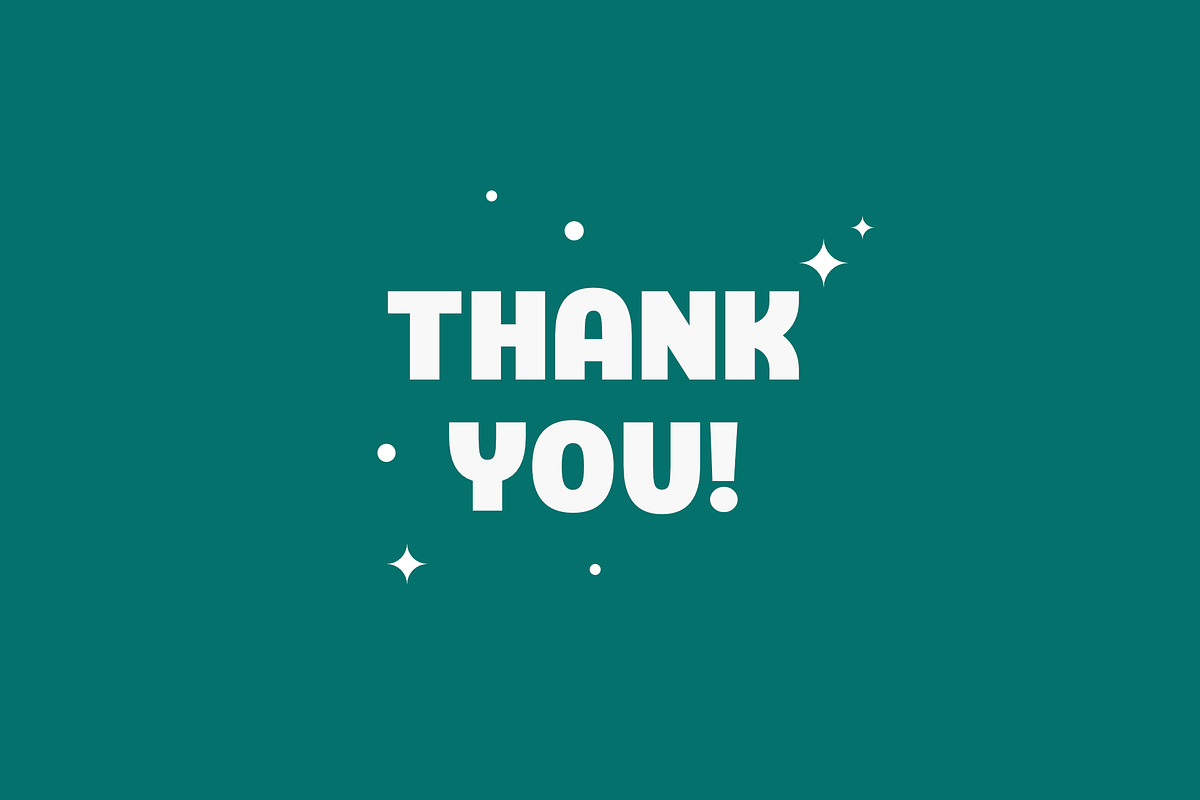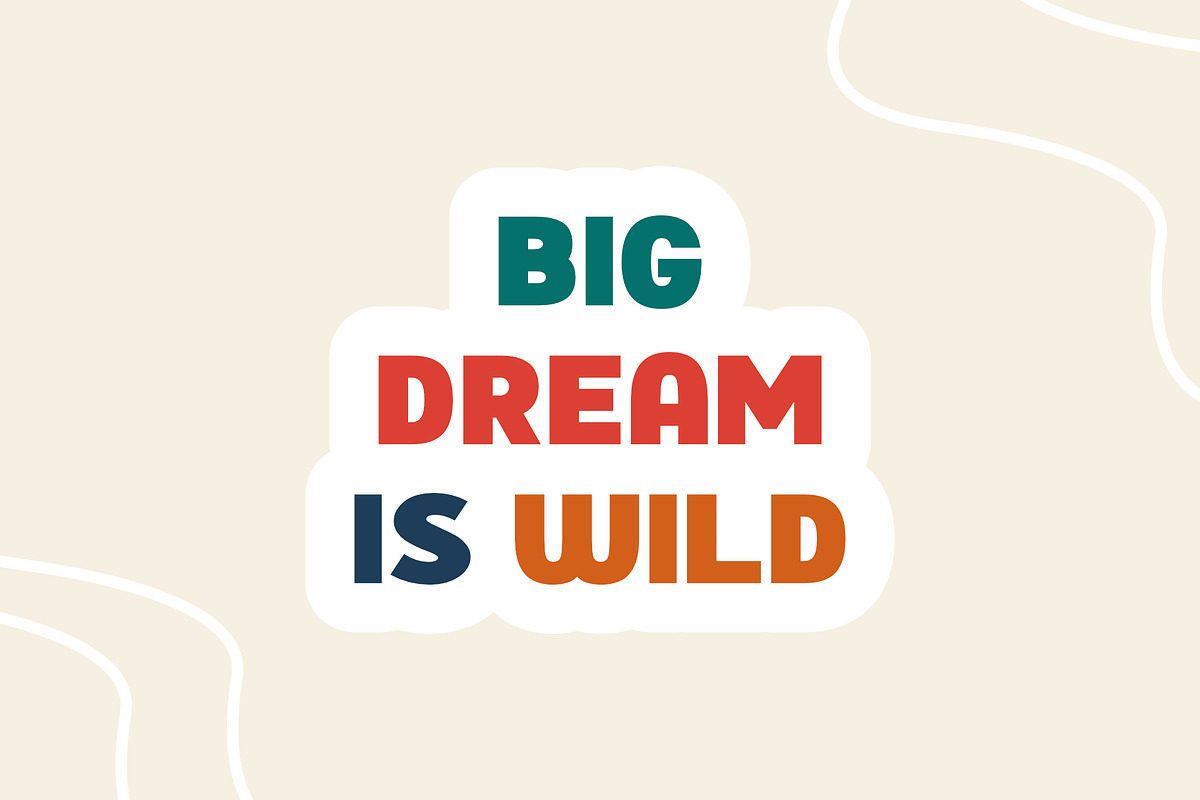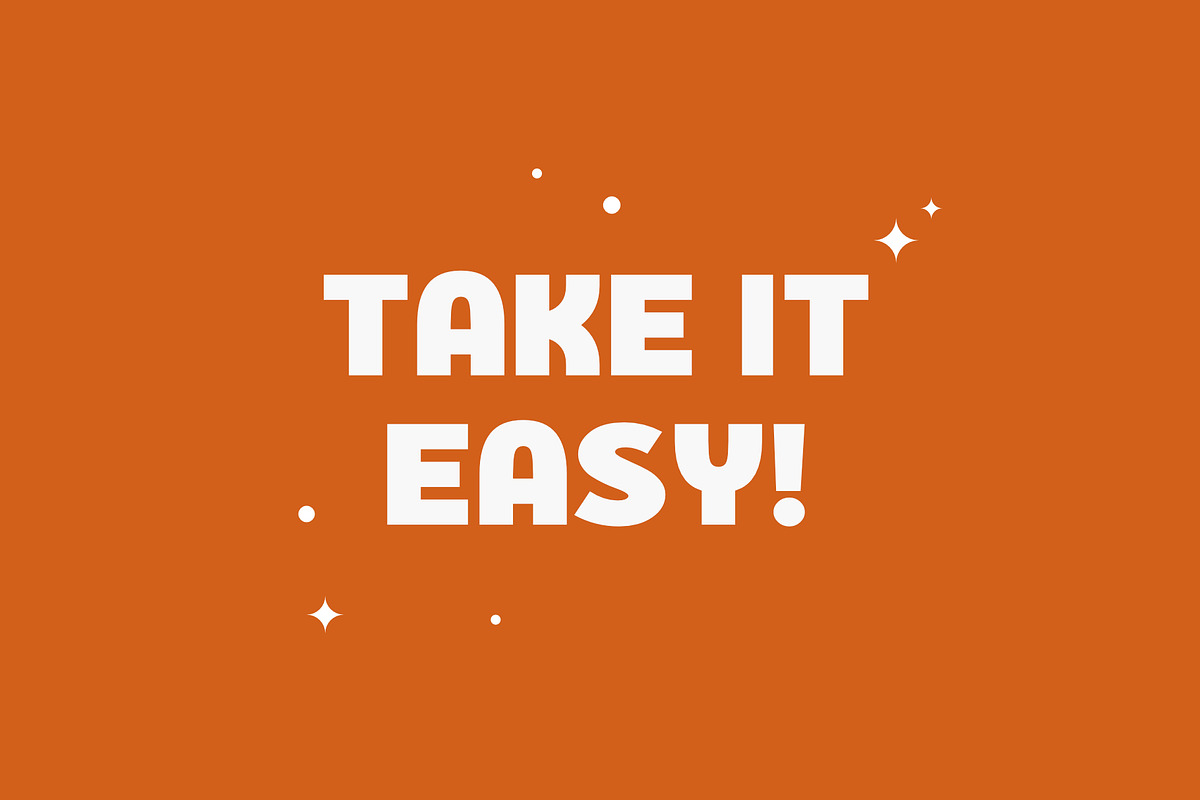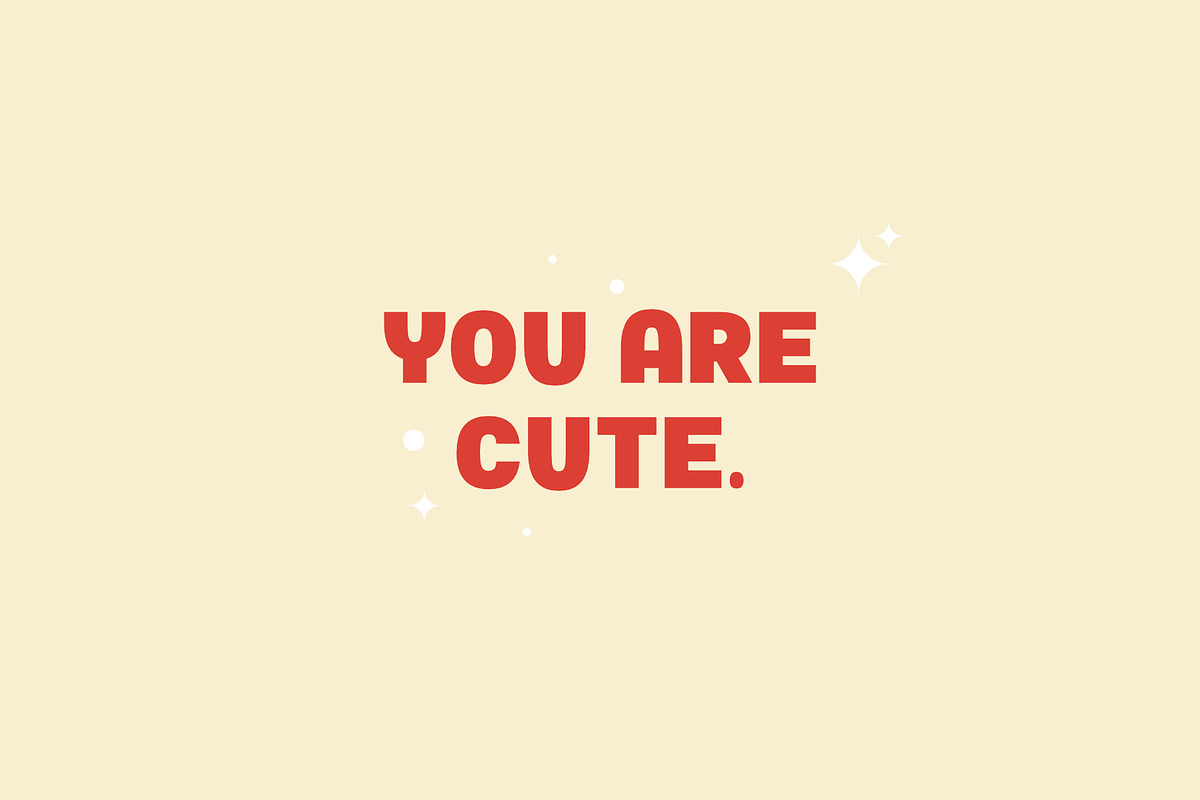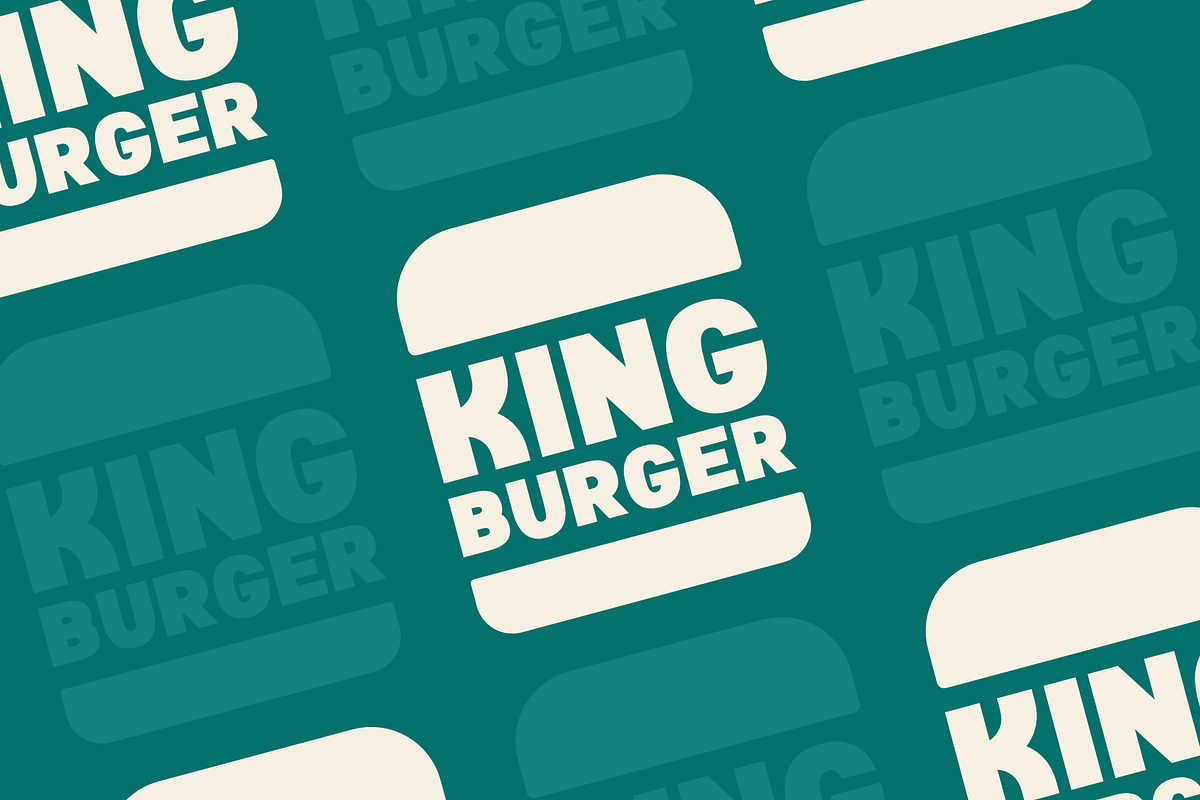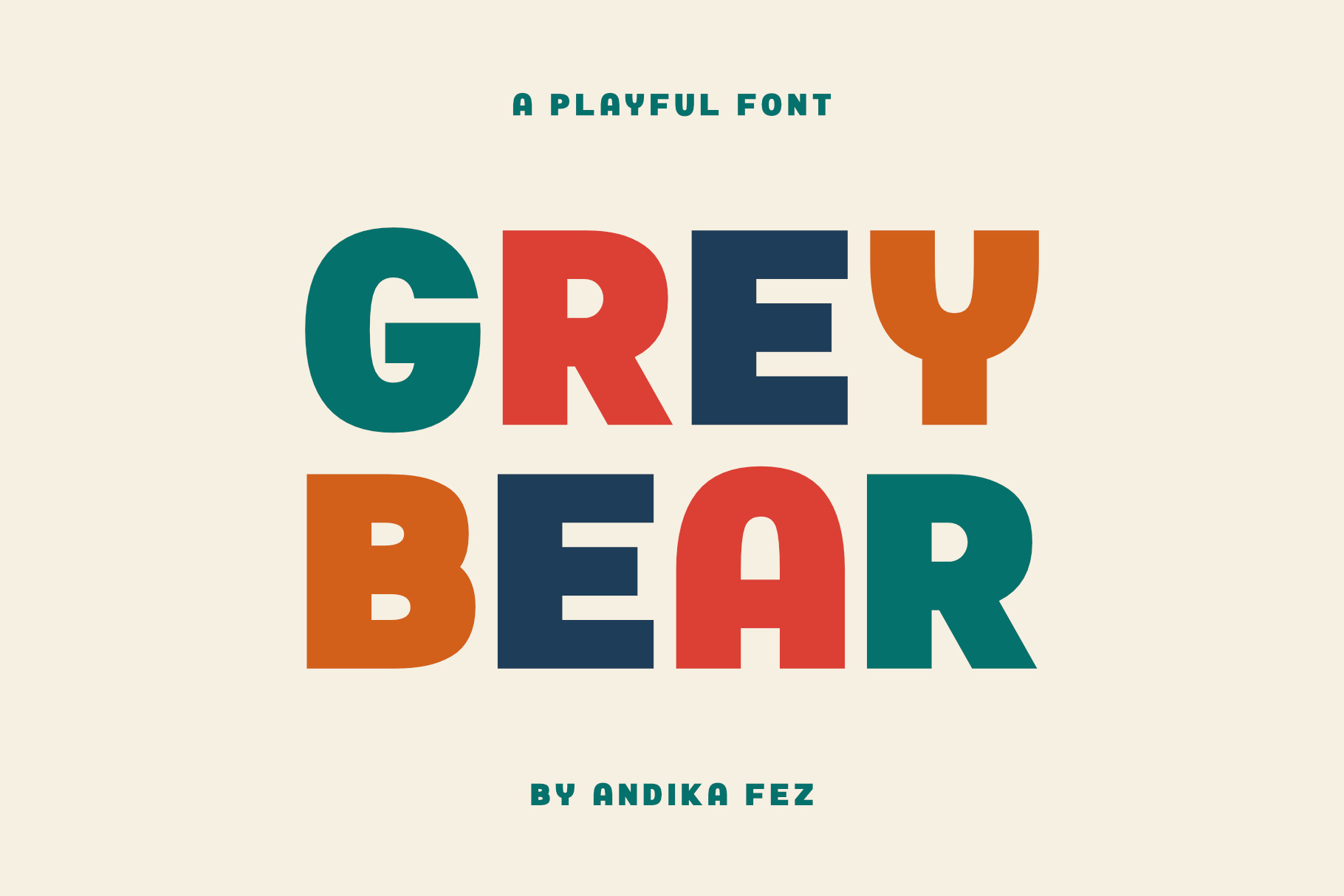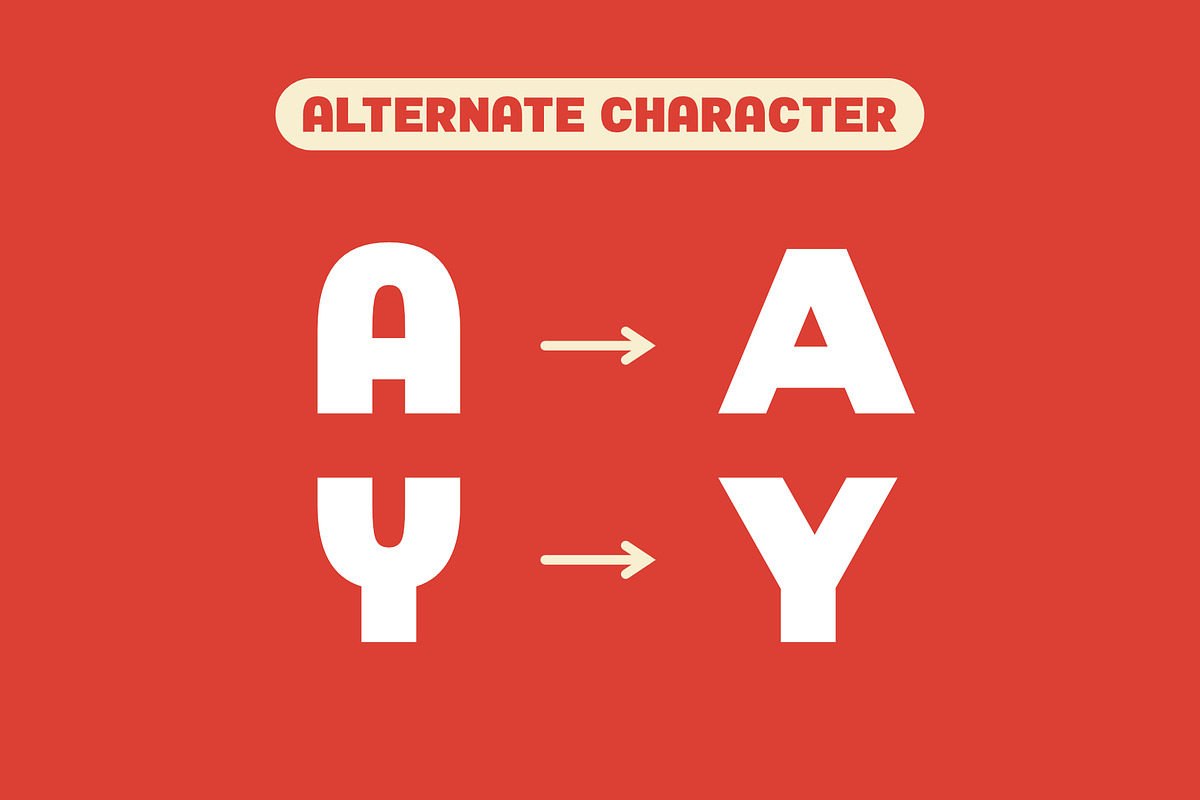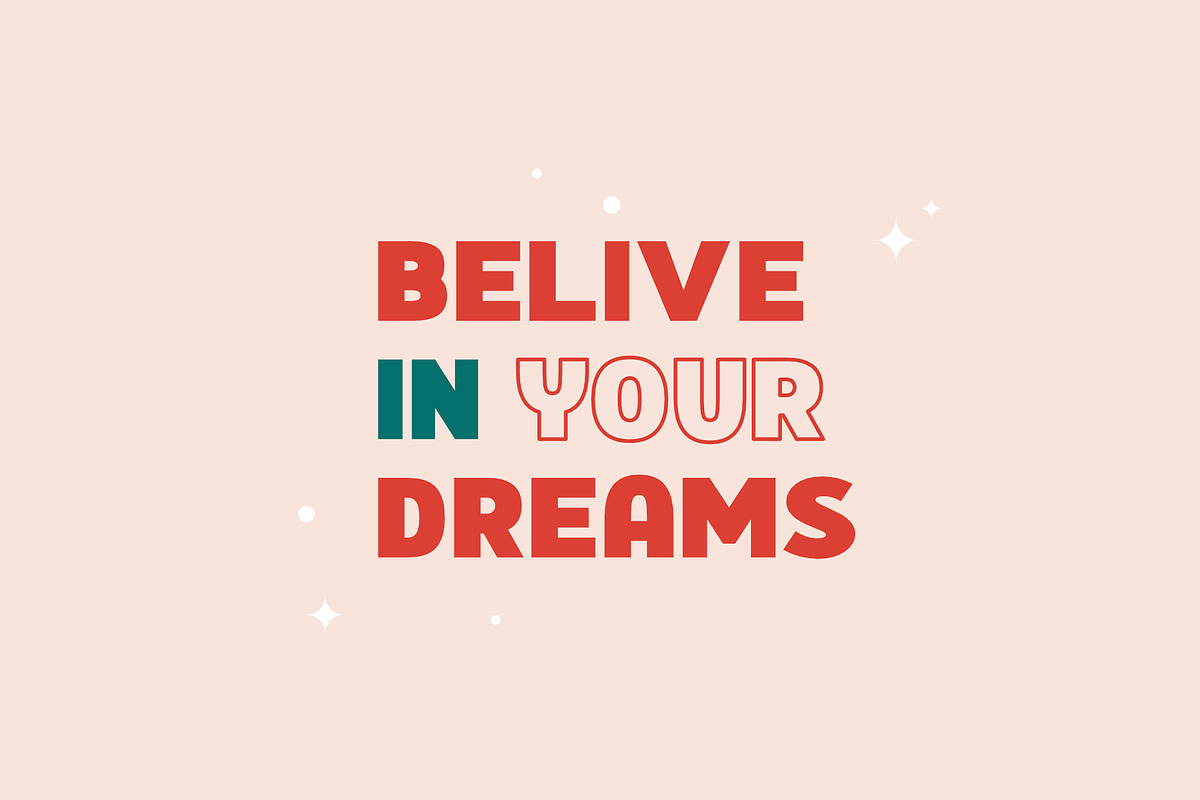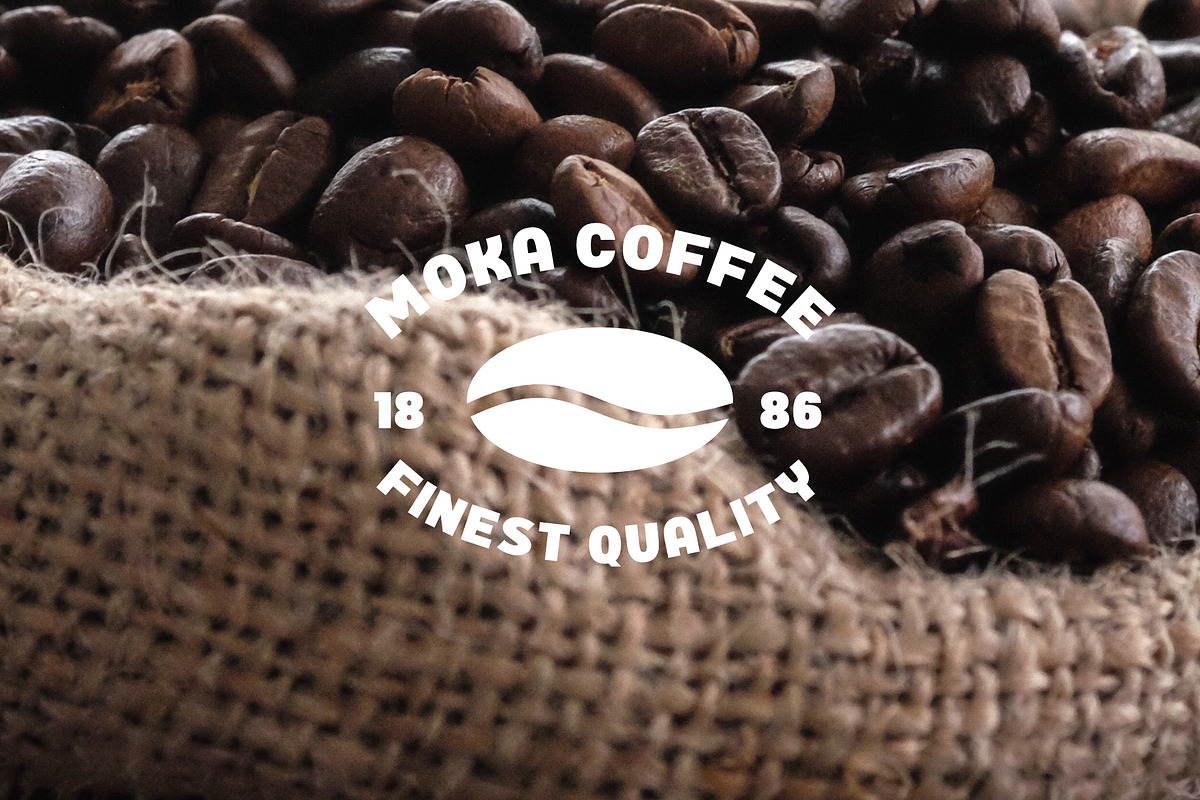
Grey Bear Modern Playful Kid Font
Grey Bear is a bold, elegant logo font that blends modern luxury with timeless vintage charm. Perfect for high-end branding, stylish logos, and sophisticated wedding designs, Grey Bear brings a refined yet approachable vibe to every design. With its clean, geometric, and minimal structure, this sans serif font stands strong while maintaining a soft sense of elegance.
Whether you're building a fashion brand, curating a luxe logo, or crafting creative branding materials, Grey Bear delivers that perfect mix of retro character and modern flair. It’s designed for creatives who want their typography to feel luxurious, bold, and beautifully balanced.
From upscale wedding invites to fashion-forward logos, Grey Bear is the kind of font that turns heads and elevates your brand effortlessly.